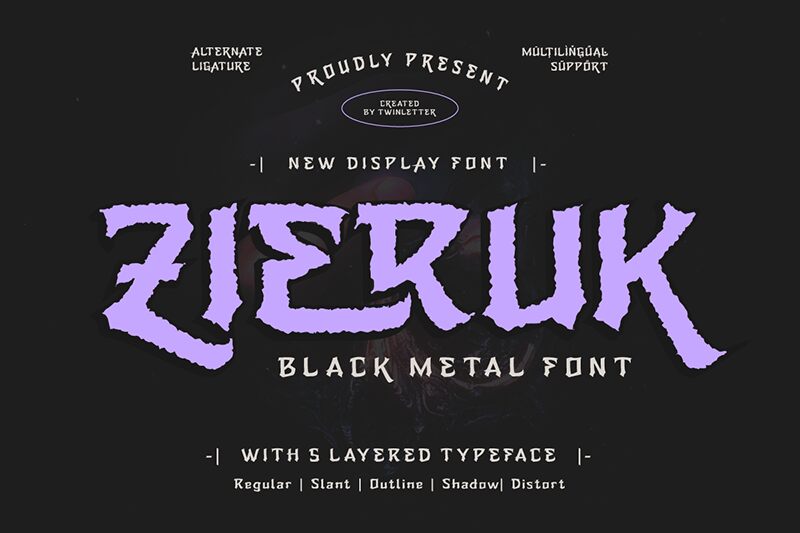
Zieruk font family, designed by twinletter, bursts with gothic energy across its two dynamic font styles. This font family immerses users in an aggressive, intense, and dramatic vibe. It’s rugged, edgy, and expressive, making it perfect for designs that aim to make a bold statement. Striking and attention-grabbing, it's poised to bring a heightened emotional impact wherever used.
Zieruk is well-suited for posters, album covers, and book titles. Use it in logo designs, advertising materials, and apparel - or on websites and social media. The dramatic flair can also give an expressive touch to packaging, film posters, or event promotions.